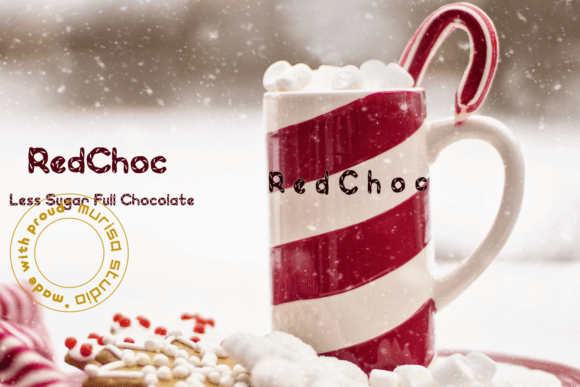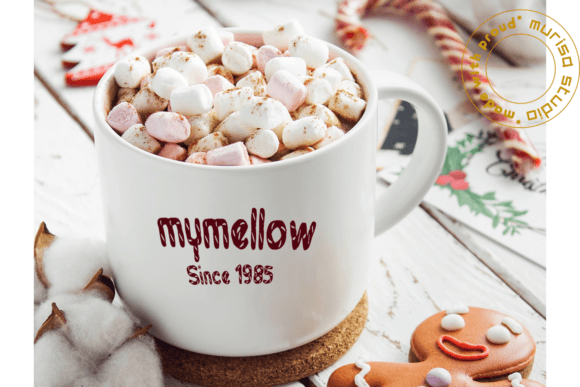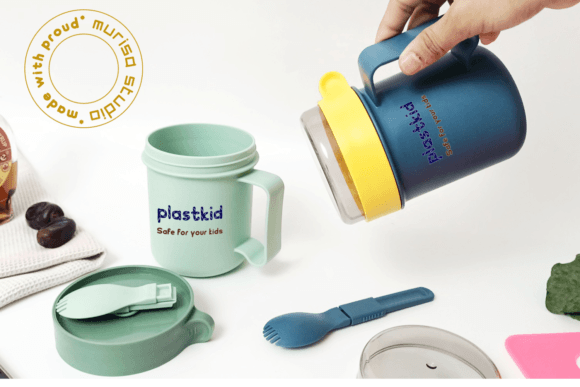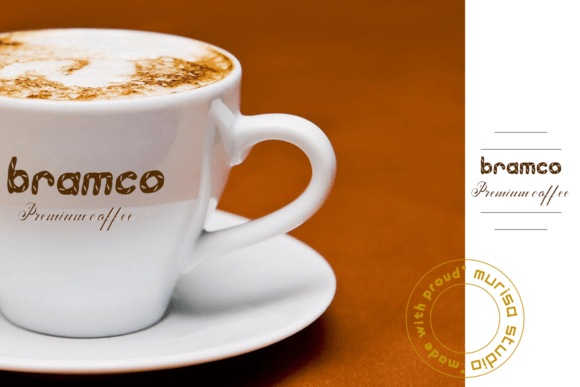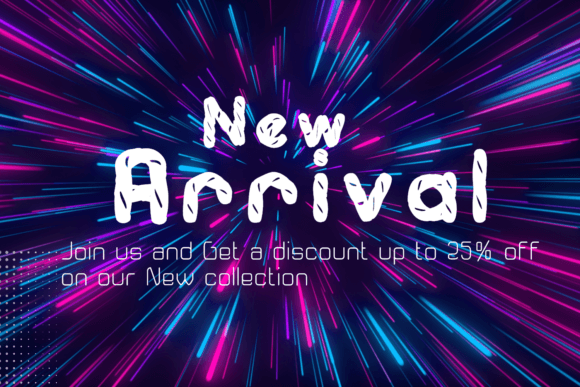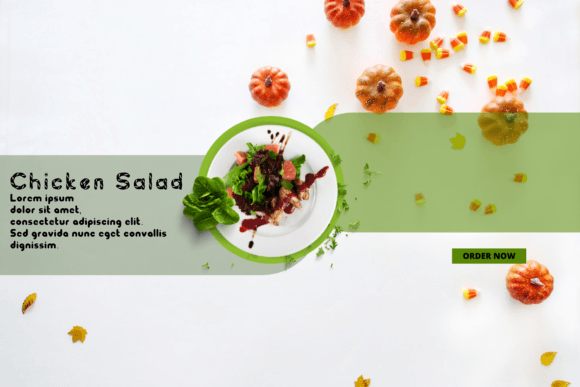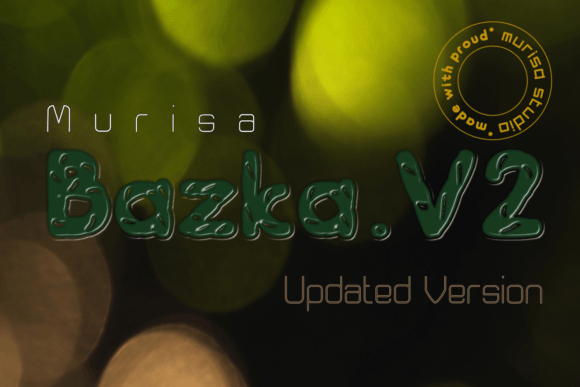
Bazka Font: Elevate Your Crafting Ideas with a Cool and Unique Display Font
Are you a designer, crafter, or DIY enthusiast looking for a font that can add a touch of personality to your projects? Look no further than Bazka Font, a cool and uniquely designed display font that’s perfect for a wide range of crafting ideas. From cards and branding to labels and more, Bazka Font is sure to elevate your creations and leave a lasting impression.
What Makes Bazka Font So Special?
Bazka Font is a one-of-a-kind display font that’s designed to make a statement. Its unique and cool design sets it apart from other fonts, making it perfect for crafters and designers who want to add a personal touch to their projects. Whether you’re creating handmade cards, crafting custom labels, or developing a brand identity, Bazka Font is the perfect choice.
Uses for Bazka Font
The versatility of Bazka Font is one of its best features. This font can be used for a wide range of crafting ideas, including:
- Handmade Cards: Add a personal touch to your greeting cards, invitations, and other paper crafts with Bazka Font.
- Branding: Use Bazka Font to create a unique and memorable brand identity for your business or product.
- Labels: Create custom labels for your products, gifts, or storage containers with Bazka Font.
- Signs and Posters: Use Bazka Font to create eye-catching signs and posters for events, promotions, or decorations.
Why Choose Bazka Font?
So why choose Bazka Font over other display fonts? Here are just a few reasons:
- Unique Design: Bazka Font has a one-of-a-kind design that’s sure to stand out from the crowd.
- Versatile: Bazka Font can be used for a wide range of crafting ideas, from cards and labels to branding and signs.
- High-Quality: Bazka Font is a high-quality font that’s designed to produce crisp and clear results.
Tips for Using Bazka Font
To get the most out of Bazka Font, here are a few tips:
- Experiment with Sizes: Try using Bazka Font in different sizes to create visual interest and hierarchy.
- Play with Colors: Use Bazka Font with different colors to add contrast and personality to your designs.
- Mix and Match: Combine Bazka Font with other fonts and design elements to create a unique look.